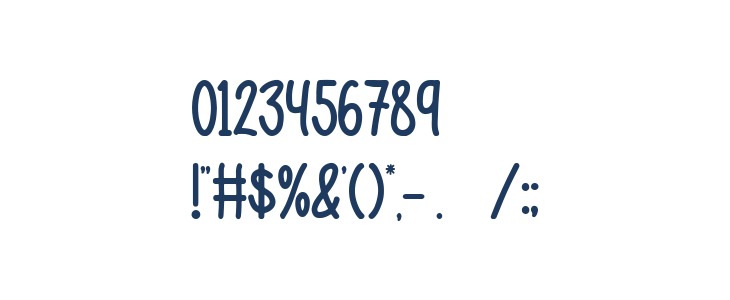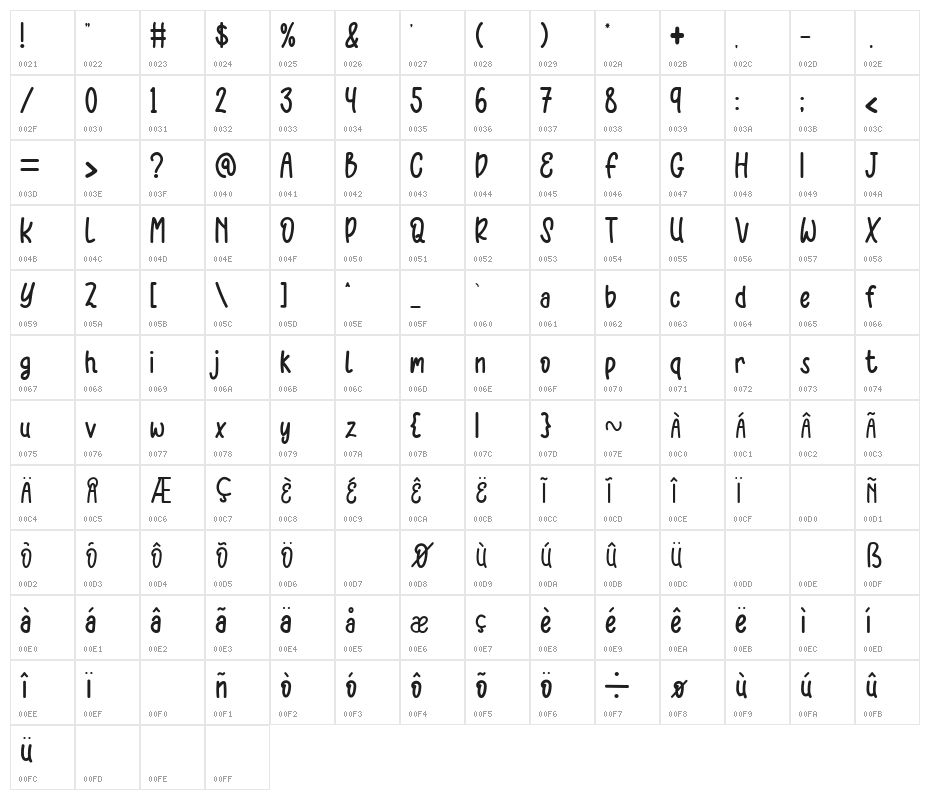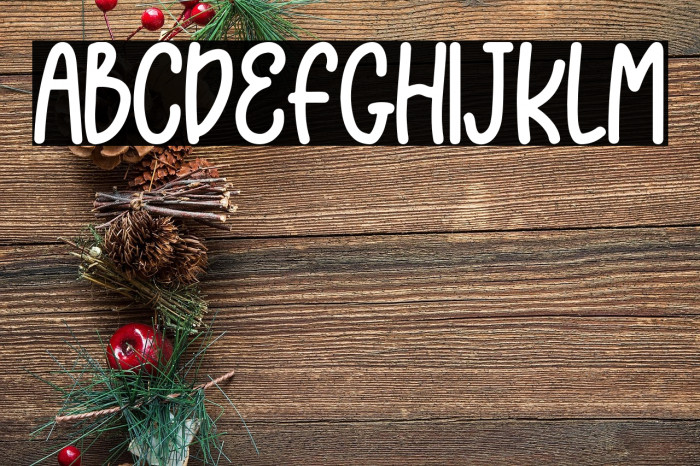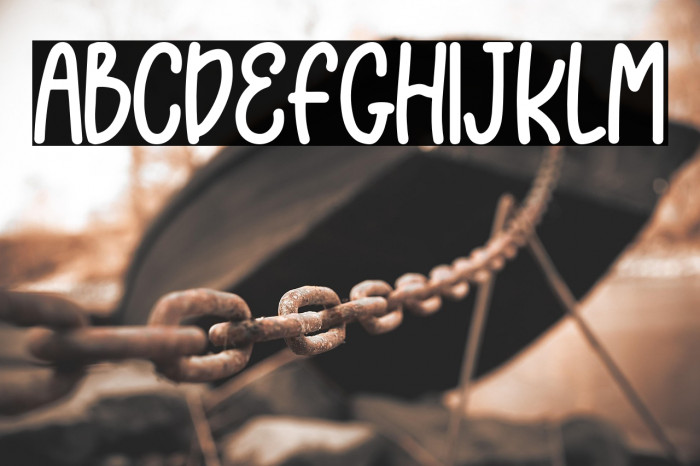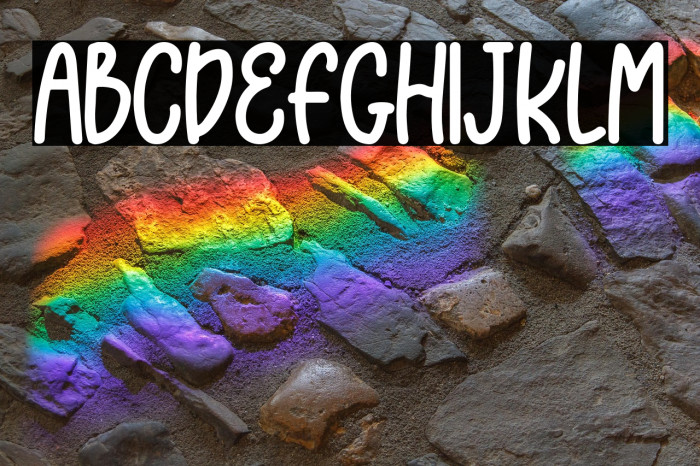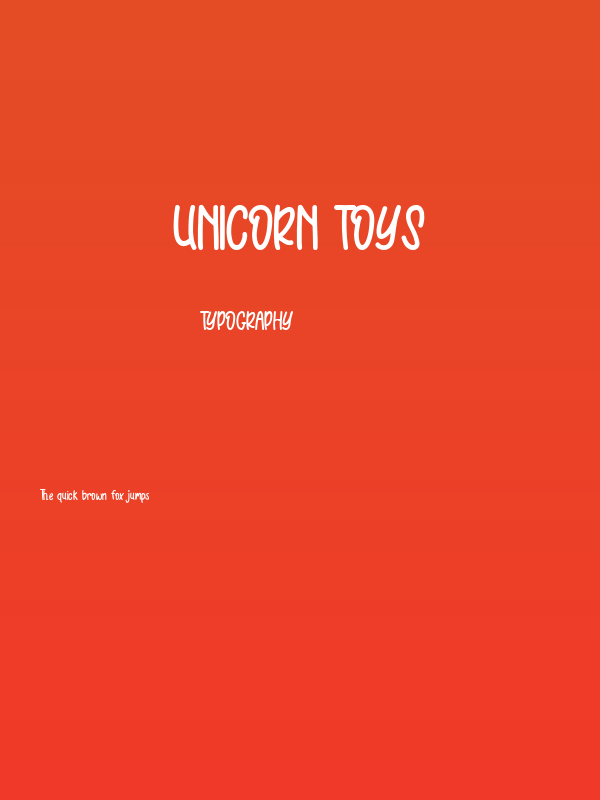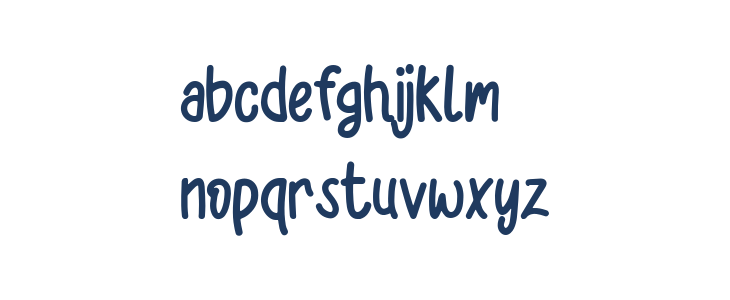
Unicorn Toys Font
Unicorn Toys Description
This playful and whimsical font features rounded, smooth edges and a hand-drawn aesthetic that gives it a friendly and approachable feel. The letters are slightly irregular, adding to its charm and making it ideal for creative projects. The uppercase and lowercase letters maintain a consistent style, with a slight slant that adds movement and energy. The numerals and special characters are designed to match the playful nature of the alphabet, ensuring a cohesive look across all text elements.
| Proposed Projects | Ideal for children's books, playful branding, greeting cards, and creative posters. |